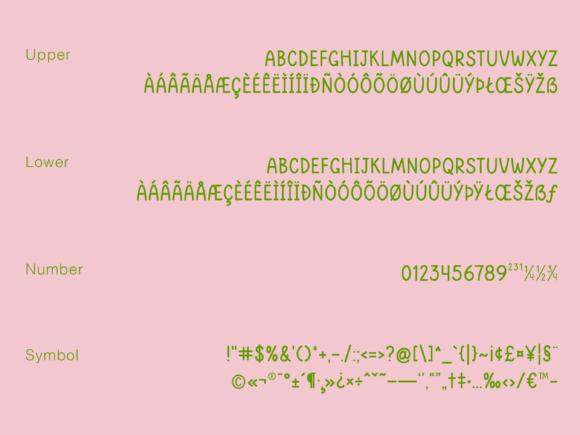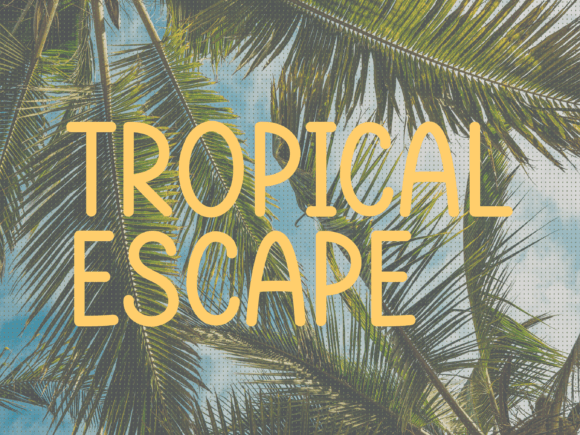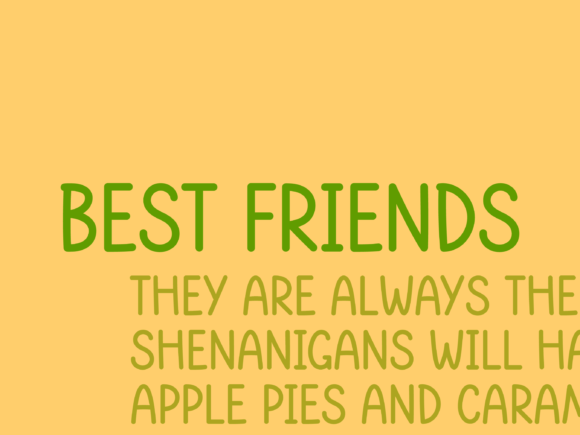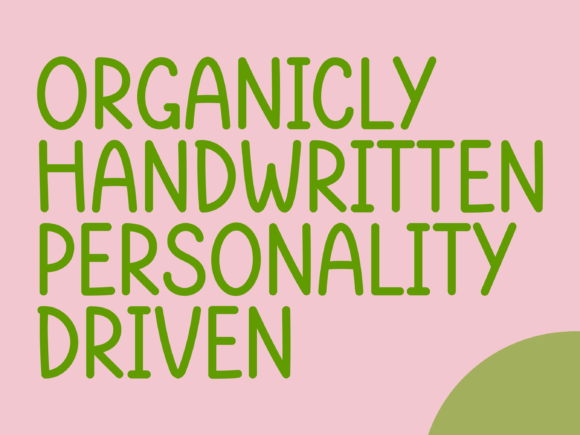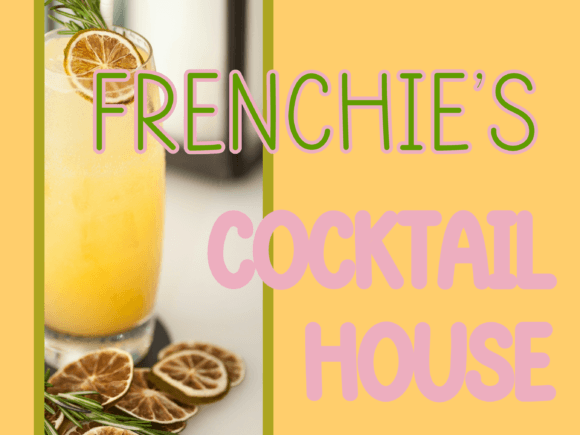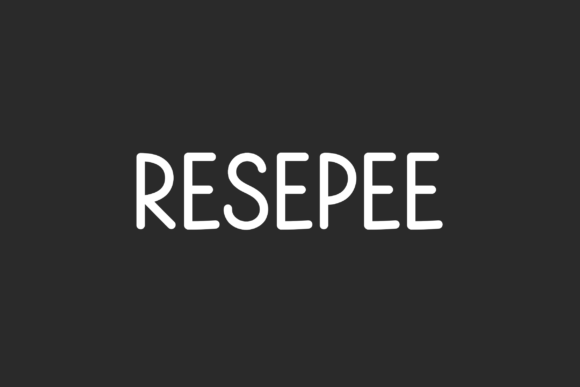
Introduction to Resepee Font
Remember the joy of flipping through your grandmother’s old cookbook, filled with handwritten recipes and love? The same feeling of warmth and nostalgia can be captured with the Resepee Font, an all-caps script font that mimics the elegant handwriting found in vintage cookbooks.
Whether you’re working on a creative project or simply need a design resource for note-taking, labeling, or making posters, Resepee Font is a valuable addition to any designer’s toolkit. Its high-quality design and transparent background make it perfect for adding a personal touch to your projects. With its unique, rustic charm, Resepee Font is sure to add a warm, homespun feel to any design.
Key Features of Resepee Font
- High-quality design resource for creative projects, available for free download
- Unique, elegant script font with a transparent background, ideal for overlaying on images or videos
- Perfect for designers and artists working on projects requiring a sophisticated, handwritten touch
- Includes a wide range of characters, including uppercase and lowercase letters, numbers, and punctuation marks
Honest Review: Resepee Font
I recently had the chance to work with the Resepee Font and I must say, it’s been a game-changer for my design projects. As a designer, I’m always on the lookout for high-quality design resources that can help elevate my work and make it stand out.
- ✨ One of the things that really works well with the Resepee Font is its versatility. It’s perfect for a wide range of creative projects, from logos and branding to digital products and print materials.
- ✨ The font also comes with a transparent background, which makes it super easy to use and customize. This feature is a must-have for any designer who wants to add a professional touch to their work.
Of course, no font is perfect, and the Resepee Font has a few limitations. For example:
Overall, I’m really impressed with the Resepee Font. It’s a high-quality design resource that’s perfect for designers who want to add a unique touch to their creative projects. Whether you’re working on a personal or commercial project, the Resepee Font is definitely worth checking out.
How to Use Resepee Font
The Resepee Font is a high-quality design resource perfect for any creative project that requires a unique and stylish touch. With its transparent background and versatile design, it’s an ideal choice for designers and non-designers alike.
Tips for Getting the Most Out of Resepee Font
To get the most out of the Resepee Font, be sure to:
- Experiment with different font sizes and styles.
- Combine the font with other design elements to create a unique look.
- Use the font in a variety of creative projects, such as logos, business cards, and social media graphics.
The Resepee Font is perfect for a variety of use cases, including:
- Logos and branding materials.
- Social media graphics and advertising.
- Business cards and promotional materials.
- Web design and development.
Alternatives to Resepee Font
Open Sans is a popular sans-serif font known for its readability and versatility. It’s an excellent choice for creative projects that require a clean and professional design resource. Use Open Sans for body text, paragraphs, and other text elements where readability is crucial.
Is the Resepee Font suitable for high-resolution designs?
Yes, the Resepee Font is designed to be highly legible and scalable, making it an excellent choice for high-resolution designs, such as those used in print materials, signage, or digital displays. Its transparent background and high-quality design ensure that it will look great even at small font sizes or when used in complex compositions.